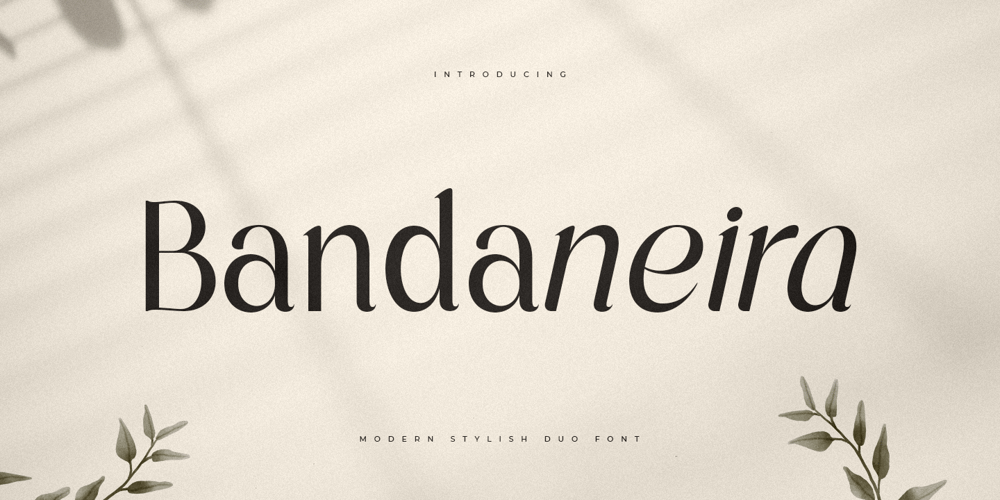
Bandaneira Style Font Family was designed by Zamroni Hamzah and published by Sensatype Studio. Bandaneira Style contains 2 styles and family package options. A Modern Stylish Duo Font that we created special for elegant branding needs, with unique shape will be ready to add value of your brand. It so nice to leverage designer or product owner that need solutions to make their design look more stylish and modern. And specially for Bandaneira font, We prepared any characters to help you create unlimited variations for your creative needs.Bandaneira Modern Stylish Duo Font ready with: Unique Beauty Characters Bandaneira (Regular and Italic) Preview as a inspirations that you can do with Bandaneira font Ready with Lowercase and Uppercase characters Wish you enjoy our font. ๐